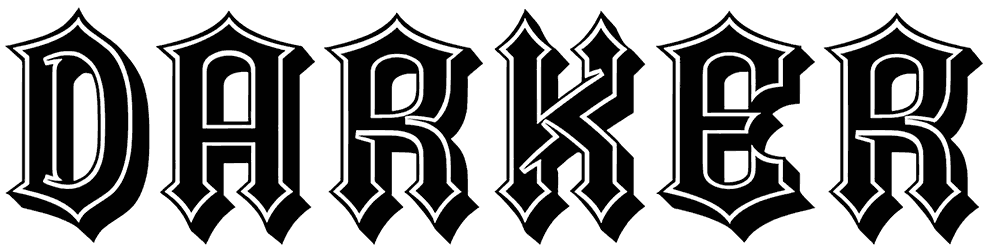
Darker Font
If you hope for medieval typography with a modern feel, you are in the proper place. Darker is a modern gothic font. It can be utilized in 2 styles, and each one is fascinating in a distinct way! The sharp, pointy characters are 3D and have outstanding shadows.
Apart from the amazing letterforms included, lower case alphabets are not available as it looks powerful without them. Logos, branding, games, movies, posters, and even books are places where Darker will gain attention.